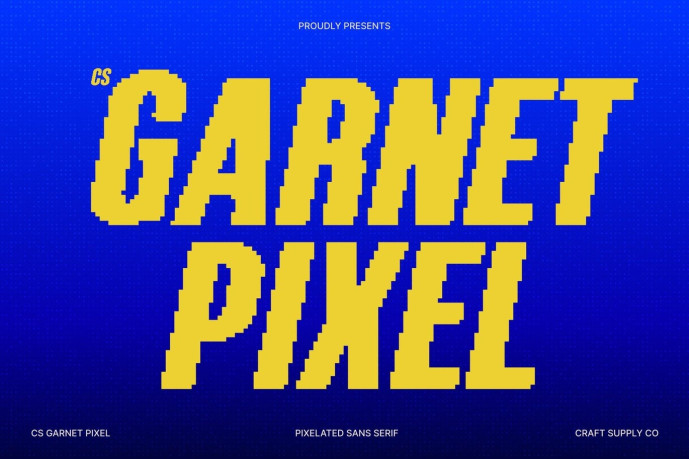
Garnet Pixel Font
Garnet Pixel Font – Condensed Power with Digital Impact Strong and Modern Pixel Design This is a condensed sans serif display font built for maximum visual power in minimal space. Its compact proportions and pixel-based construction create a bold, commanding presence that feels sharp, modern, and instantly eye-catching. Designed to thrive in high-impact layouts, it delivers strength and clarity even in the most space-conscious designs.
Compact Letterforms with High Readability Despite its tight structure, this font remains highly readable thanks to its carefully balanced pixel geometry. Each character is crafted for clarity, ensuring text stays legible in headlines, posters, and interfaces where precision matters. The pixel style enhances structure while reinforcing a strong digital rhythm.
Modern Aesthetic with Retro-Digital Edge This font blends contemporary typography with nostalgic pixel character, creating a look that feels both modern and tech-inspired. Its clean geometric forms translate perfectly across digital screens, game visuals, and retro-themed designs, evoking classic technology with a fresh, updated attitude.
Perfect for Bold Digital and Display Projects Ideal for branding, posters, game graphics, UI elements, and digital campaigns, this font excels wherever bold typography is needed. Its condensed shape and pixel precision make it perfect for futuristic visuals, old-school tech themes, and high-impact display work that demands attention and authority.